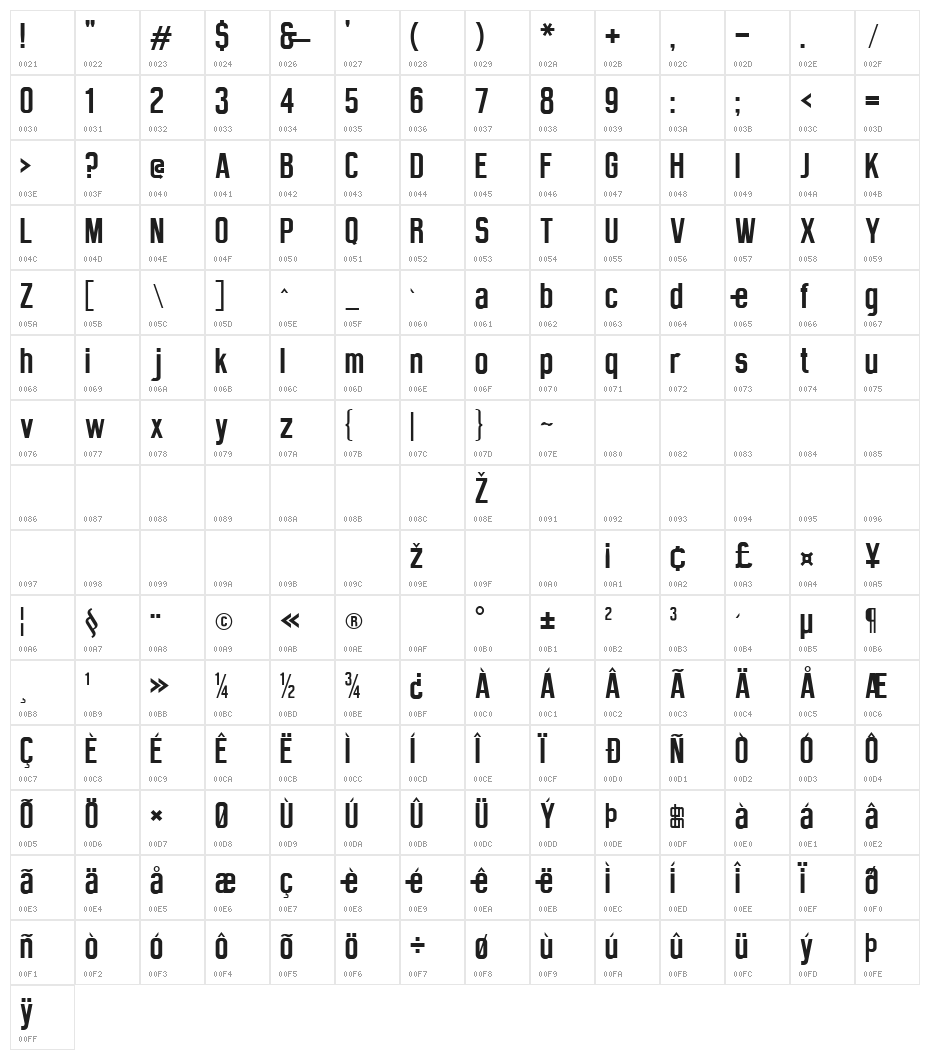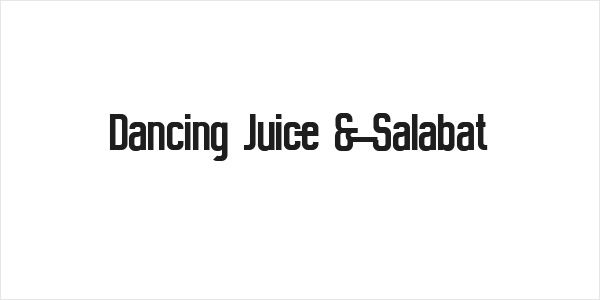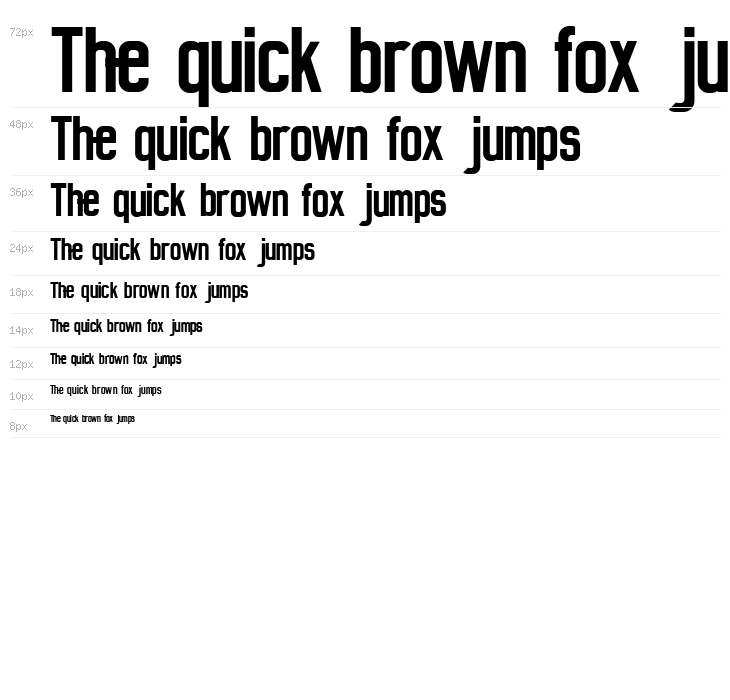
Dancing Juice & Salabat Font
Dancing Juice & Salabat Description
This font features a bold and impactful design with a modern aesthetic. The characters are uniformly structured with clean lines and a strong presence, making it ideal for attention-grabbing headlines. The uppercase and lowercase letters maintain a consistent height, contributing to a cohesive look. The numerals are clear and easily readable, while the special characters are distinct and well-integrated into the overall design. The font's boldness and clarity make it suitable for a variety of design projects that require a strong visual impact.
Proposed ProjectsIdeal for branding, advertising, posters, and headlines where a bold statement is needed.